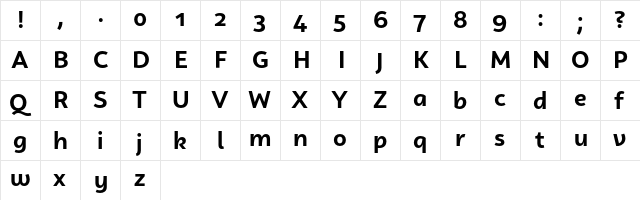
Campuni Demo Bold
| Foundry | Moritz Kleinsorge |
| Designer | Moritz Kleinsorge |
Design Context for Campuni Demo Typeface
Campuni Demo is a composed and adaptable typeface that performs quietly and consistently across a wide range of design contexts. The heavy weight commands attention and anchors typographic hierarchies.